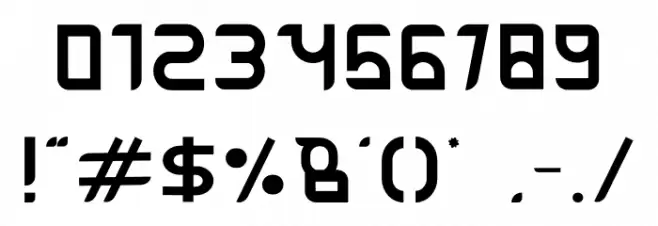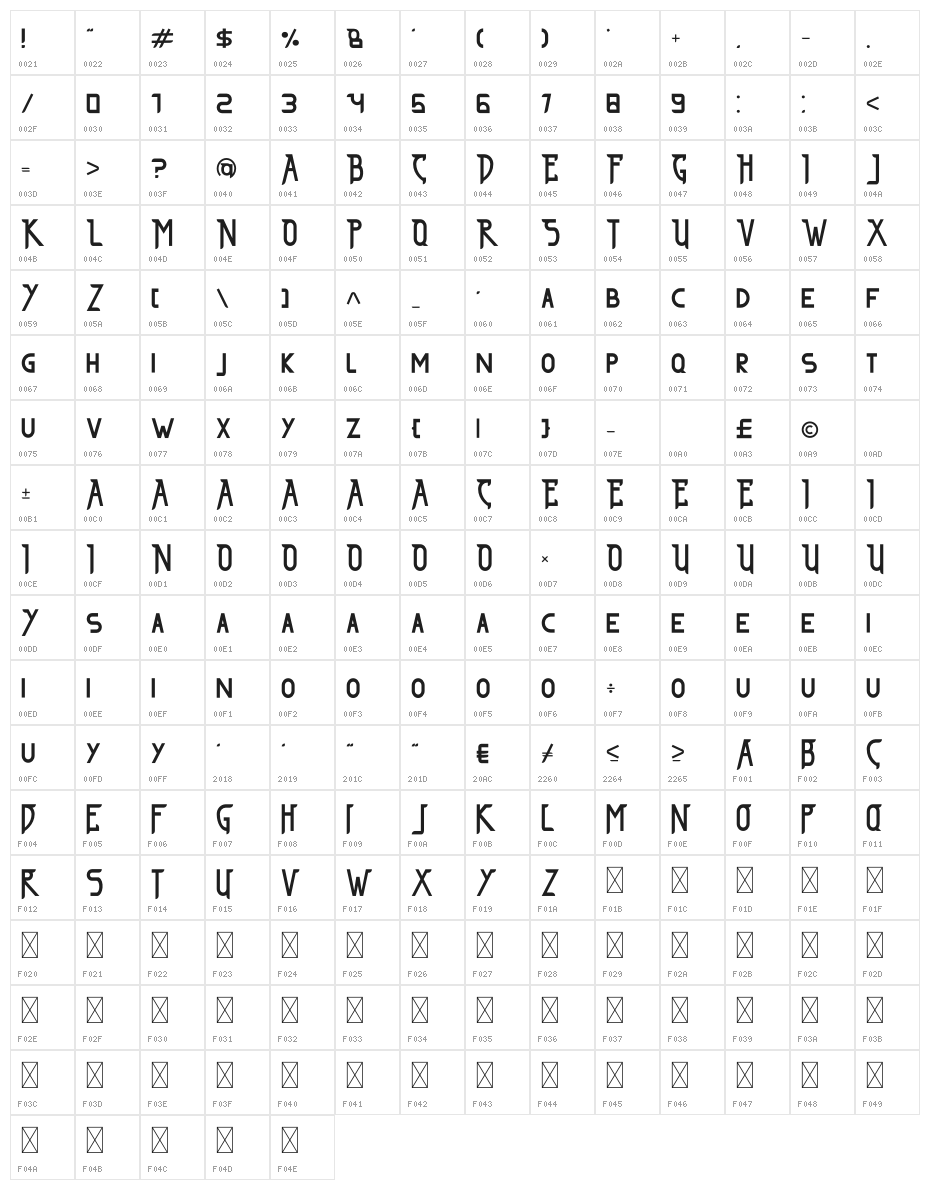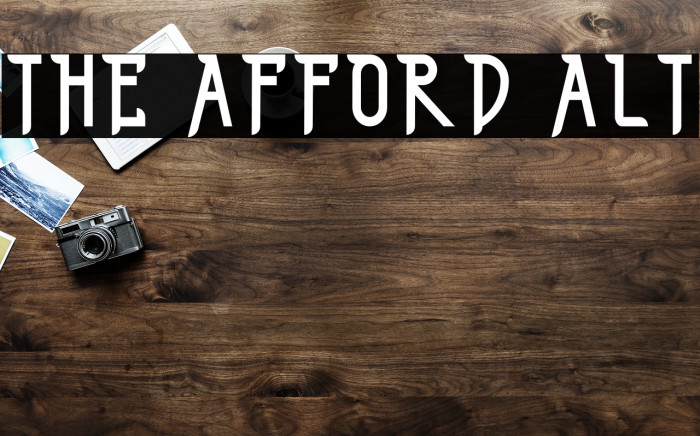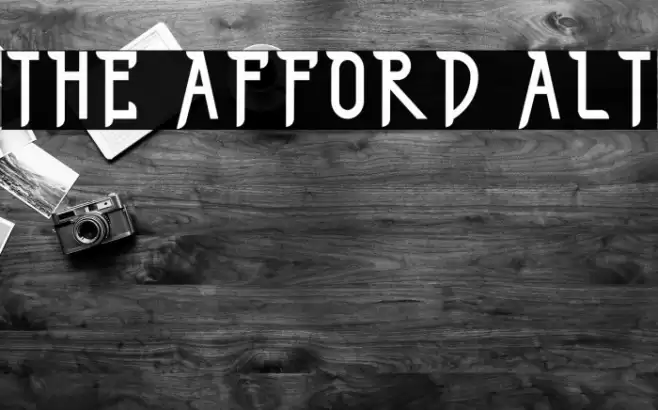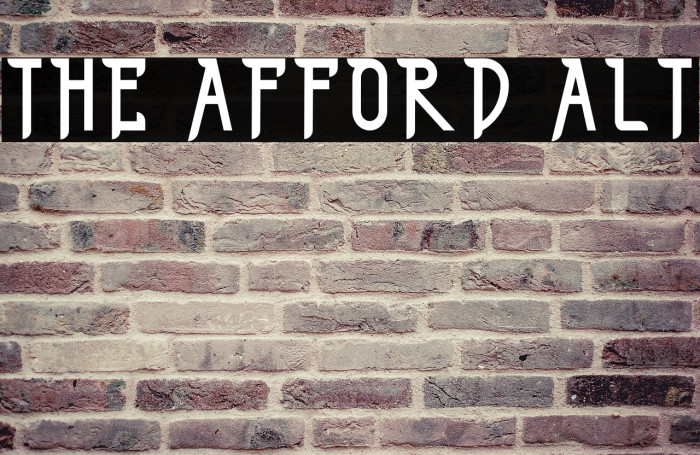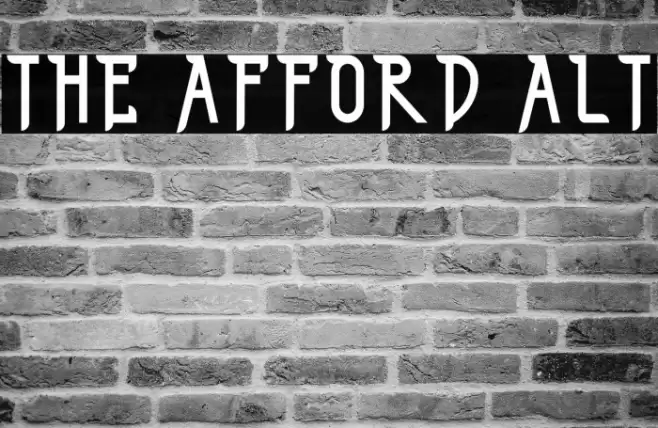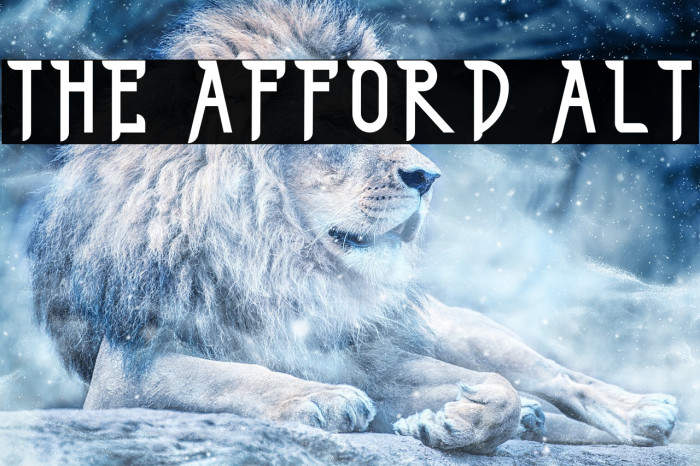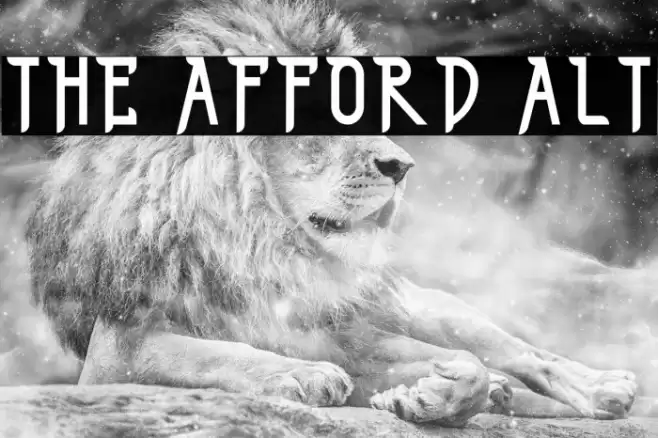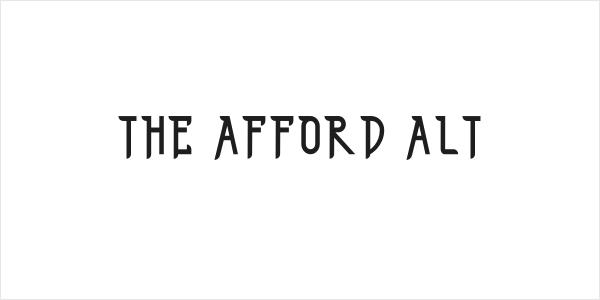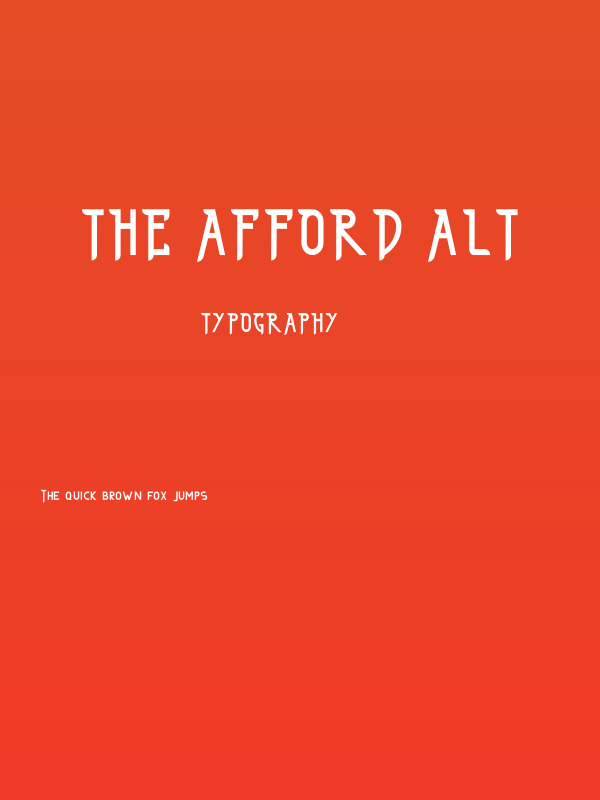
THE AFFORD ALT Font
THE AFFORD ALT Description
This font features a bold and geometric design with a modern flair. The uppercase letters are characterized by sharp angles and clean lines, giving a futuristic and industrial feel. The lowercase letters maintain the same geometric style, ensuring consistency throughout the typeface. Numbers are designed with a similar aesthetic, providing a cohesive look across all characters. The special characters are distinct yet harmonious with the overall design, making this font versatile for various applications. Its boldness and unique style make it stand out, suitable for projects that require a strong visual impact.
| Proposed Projects | Ideal for branding, posters, headlines, and any design requiring a strong, modern aesthetic. |